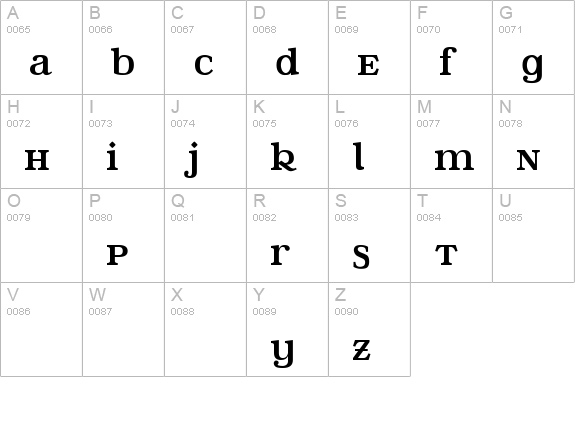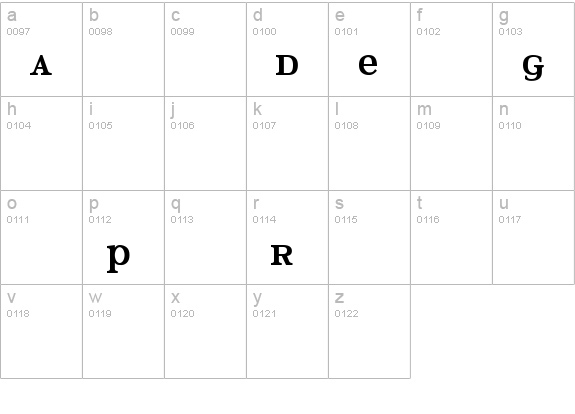
Water Street Detour Regular Font Details
Water Street Detour Regular is the standard, neutral variant in the Water typeface family \xE2\x80\x94 well suited to general body text, paragraphs, and standard typographic work.
Water Street Detour Regular font is a stunning display typeface that exudes a sense of urban elegance. With its clean lines and modern design, this font is perfect for various creative projects, including branding, advertising, posters, and more. What sets Water Street Detour Regular font apart is its versatility and legibility. Its well-balanced letterforms ensure easy readability, even at smaller sizes, while its intricate details add a touch of sophistication to any composition. Whether you're designing a logo for a sleek tech startup or crafting a headline for a fashion magazine, this font will effortlessly elevate your work. But what truly makes Water Street Detour Regular font stand out is the fact that it is freely available to download at FontsMarket.com. Yes, you read that right – this high-quality font can be yours without having to spend a single dime. FontsMarket.com is a trusted source for premium fonts and offers a vast collection of typefaces for designers and creatives. By providing Water Street Detour Regular for free, FontsMarket.com allows you to access professional-grade typography without breaking the bank. So why wait? Enhance your design projects with the modern beauty of Water Street Detour Regular font. Download it for free at FontsMarket.com and unleash your creativity today.